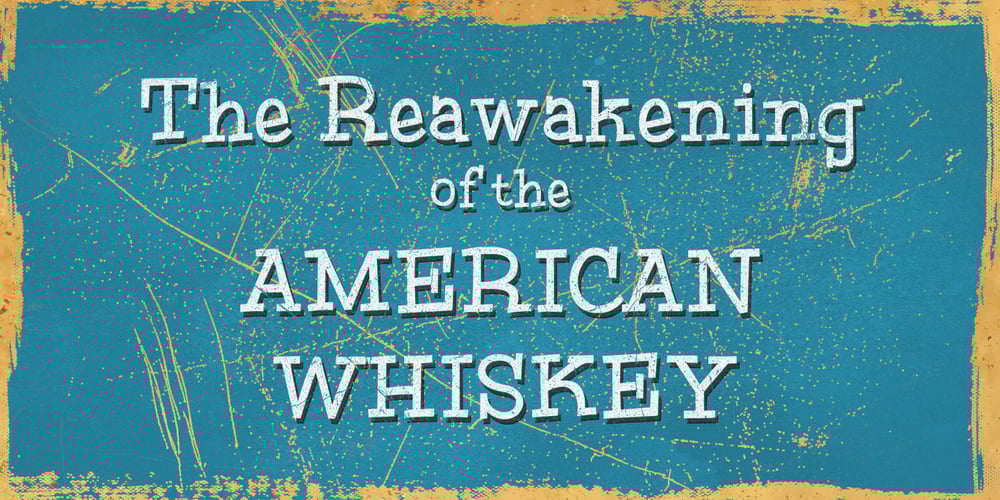
Poppin Font Family was designed by Coert De Decker and published by Kustomtype. Poppin contains 4 styles and family package options. Poppin is a playful font-type that you can comfortably use in all kinds of styles, from modern to old school. A combination of a few names on an old movie poster is what triggered the creation of this font type. Because it had such a strong rock and roll character, I decided to dedicate a font-type to it. The Poppin font is completely hand-drawn and then digitized. It results in being an extremely user-friendly, complete and modern font that you can use in all your graphic applications. Poppin is a font from the subculture that has been updated to a hip and classy font, ideal for eye-catching designs. Poppin comes in 4 styles, regular, bold , round & bold round. Poppin makes everyone smile!